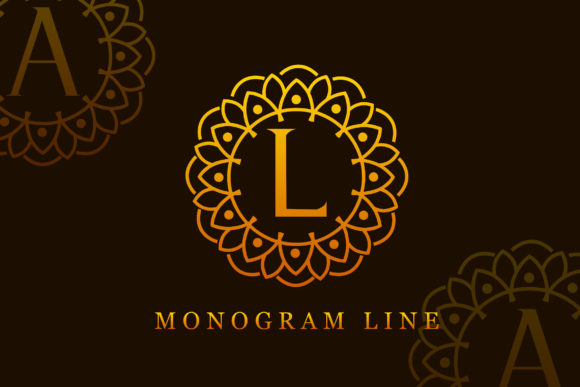
Unleash the elegance and charm of your designs with Monogram Line Font, the epitome of sophistication in the world of typography. Its delicate strokes and graceful curves are meticulously crafted to elevate your creations, adding a touch of luxury and finesse.
Immerse yourself in a world of creativity with Monogram Line Font, the perfect font for screen printing. Its versatility knows no bounds, enabling you to effortlessly craft stunning wedding invitations, eye-catching stationery art, engaging social media posts, and greeting cards that sparkle with joy.
With Monogram Line Font, your designs will radiate an aura of elegance, transforming the ordinary into the extraordinary. Its timeless beauty will leave an unforgettable impression on your audience, captivating their hearts and inspiring their imaginations.
Step into the spotlight and let Monogram Line Font amplify your brand's message. Its unique style will make your designs stand out, ensuring they shine brighter than ever before. Experience the power of this remarkable font and witness the transformation it brings to your creative endeavors.
Don't settle for ordinary fonts. Embrace the allure of Monogram Line Font today and embark on a journey of creative expression that knows no limits. Let your designs bloom with elegance, captivate your audience, and leave a lasting legacy of beauty.